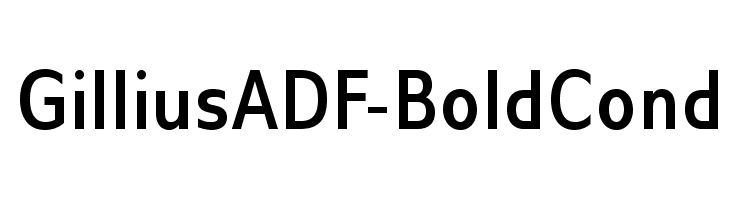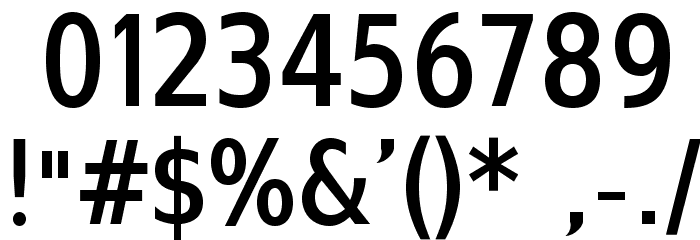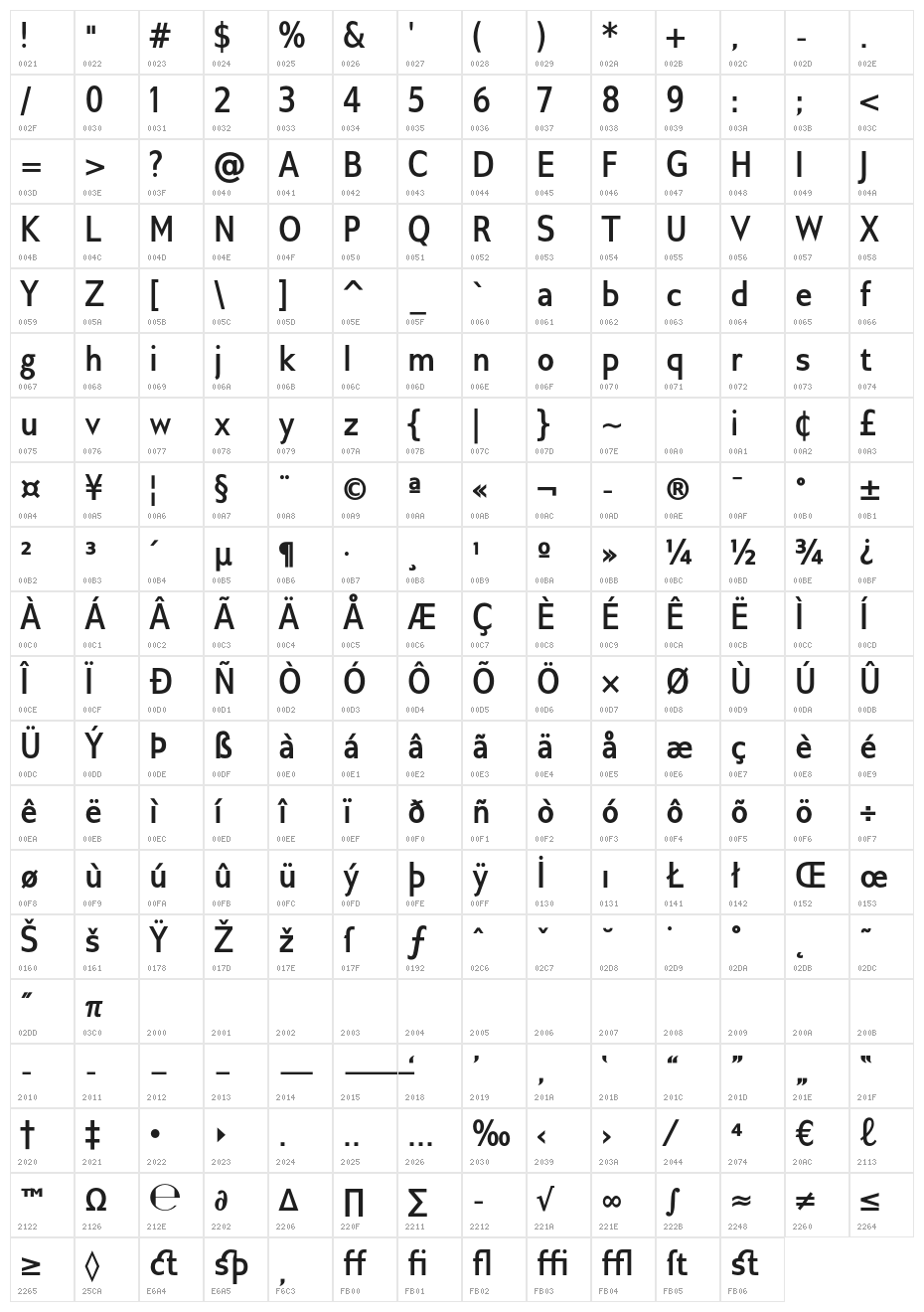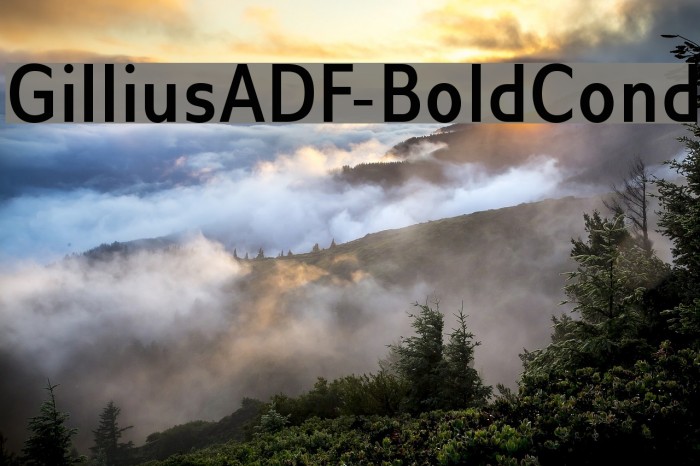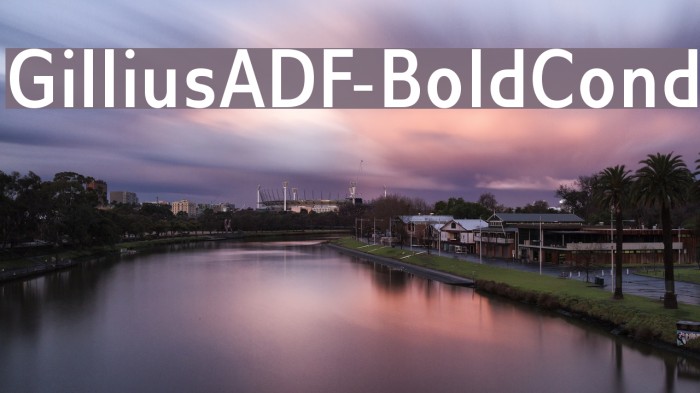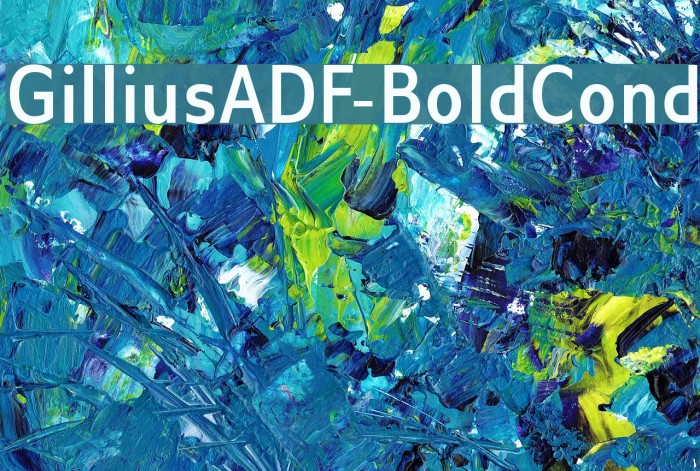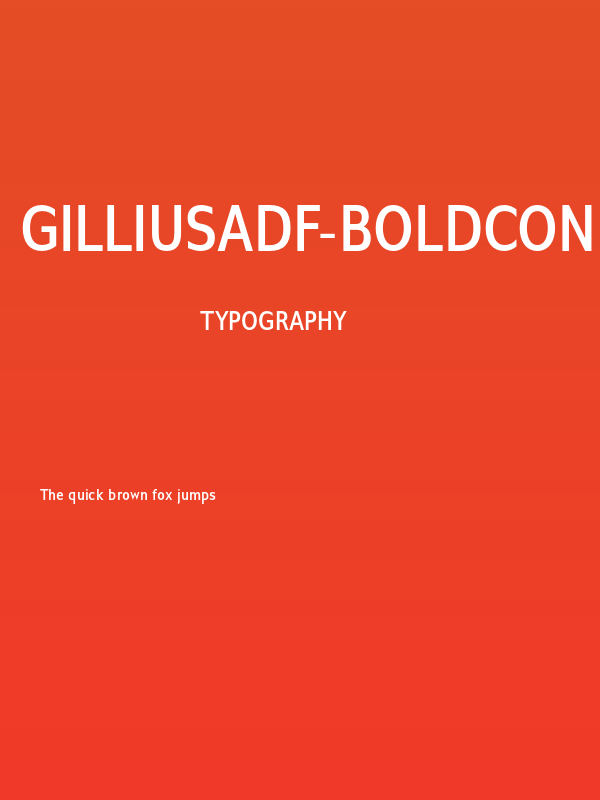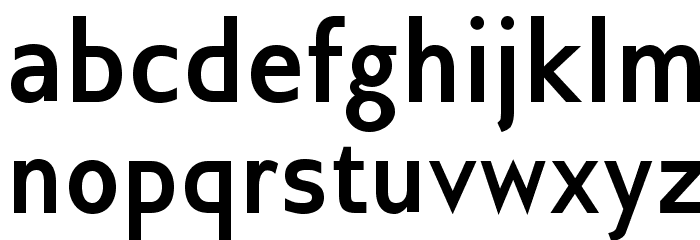
GilliusADF-BoldCond Font
GilliusADF-BoldCond Description
This font features a clean and modern sans-serif design with bold, uniform strokes that convey a sense of strength and clarity. The characters are well-proportioned, with a slightly condensed appearance that enhances readability while maintaining a compact form. The uppercase letters are tall and commanding, while the lowercase letters are rounded and approachable, providing a balanced aesthetic. The numerals are clear and distinct, making them suitable for various applications. Special characters are designed with precision, ensuring consistency across the typeface.
Use CaseHeadlines, Logos, Signage
Proposed ProjectsIdeal for branding, headlines, signage, and digital interfaces where clarity and impact are essential.